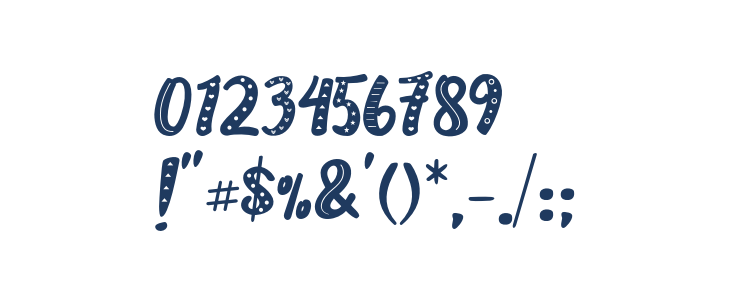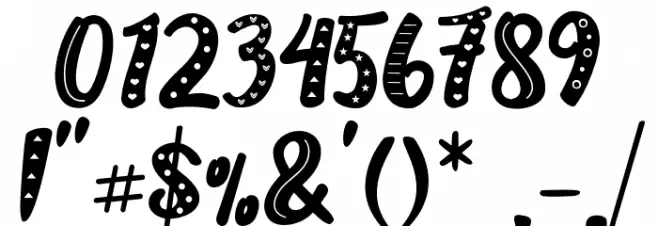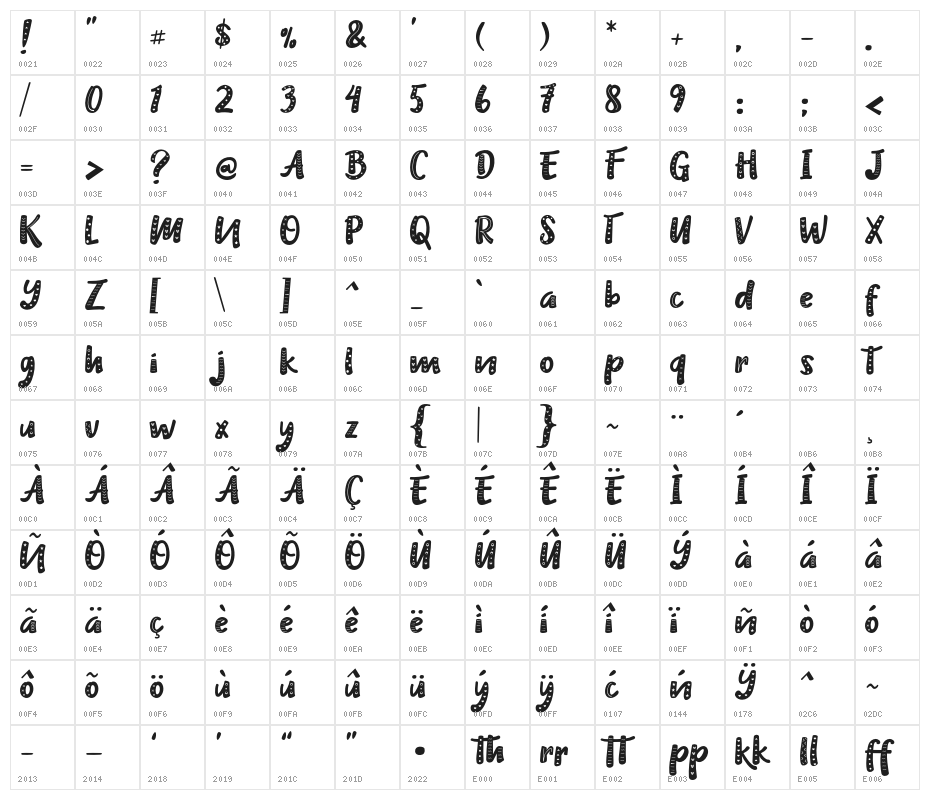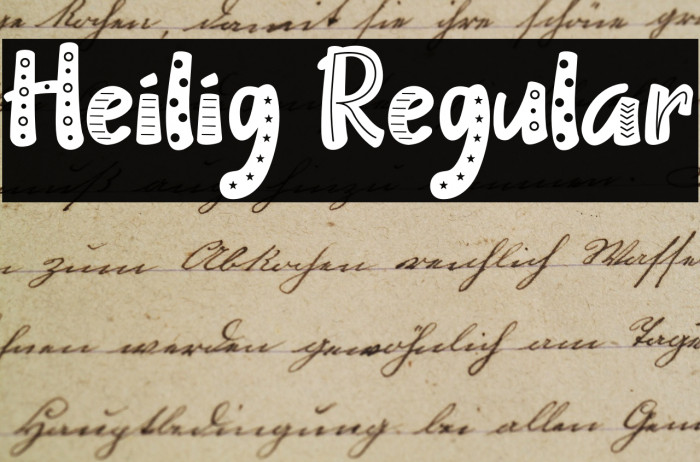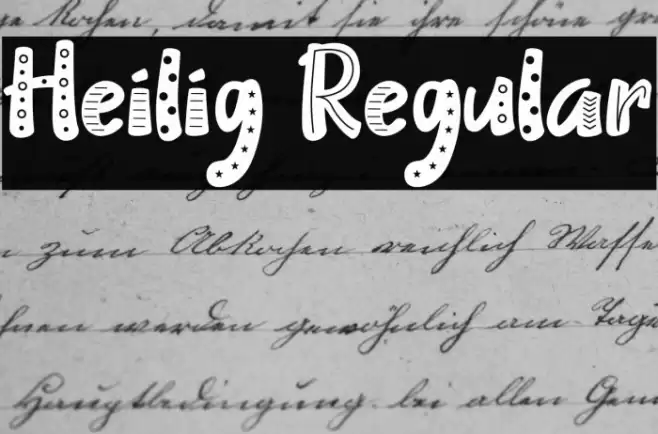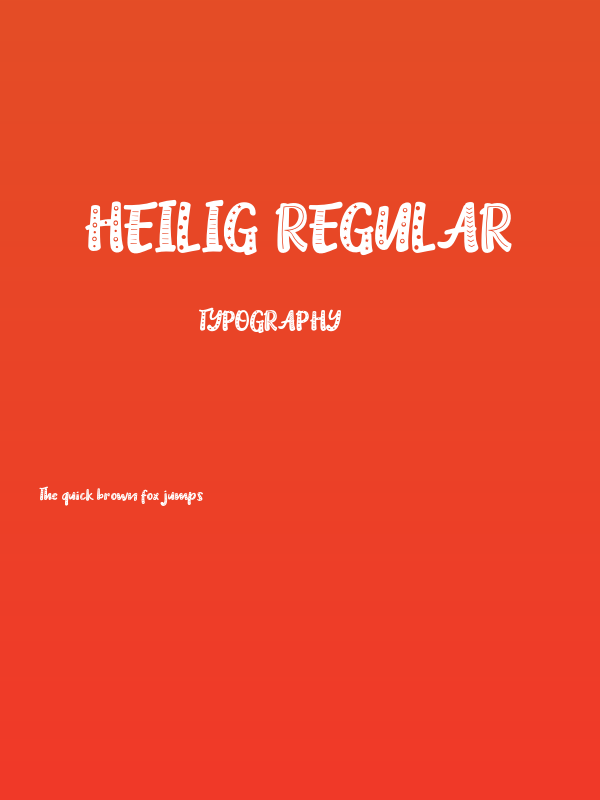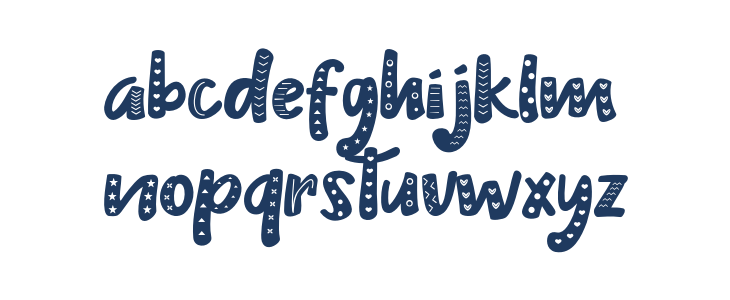
Heilig Regular Font
Heilig Regular Description
This font features a playful and decorative style, characterized by bold, rounded letters filled with various patterns such as stars, stripes, and dots. The uppercase and lowercase letters maintain a consistent whimsical theme, making it visually engaging. The numbers and special characters follow the same decorative approach, adding a unique flair to the overall design. The font's boldness and intricate patterns make it stand out, suitable for creative and fun projects.
| Proposed Projects | Ideal for children's books, party invitations, playful branding, and creative posters. |